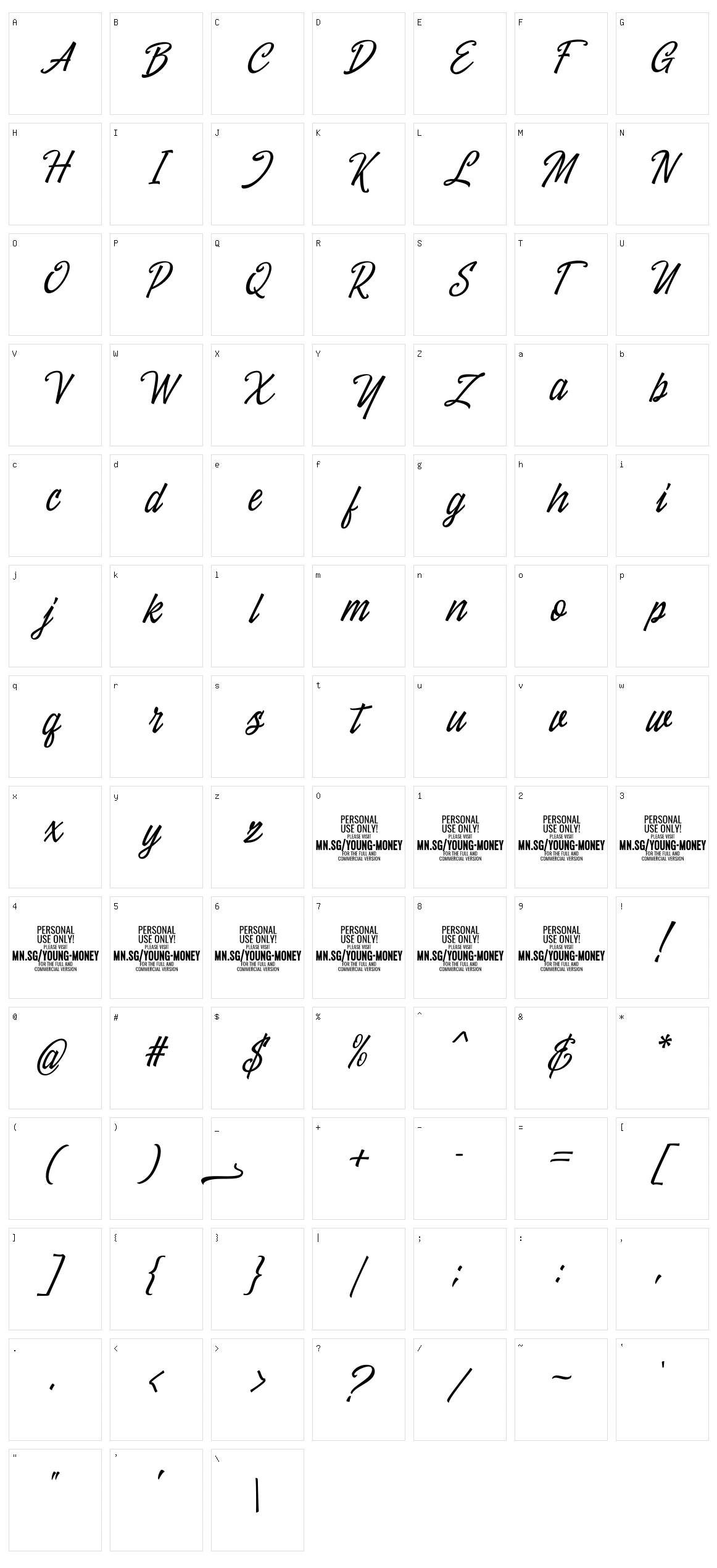
Young Money is a script font that expresses a sense of forwardness and spontaneity. Its calligraphic strokes were created with a brush, giving it a wild and fast appearance that's perfect for conveying energy and movement. This font is ideal for sporty designs, trendy logos, and anything that requires a touch of youthful vigor.
With its Bold and Italic styles, Young Money is versatile enough to be used for a variety of design purposes. The Italic style gives the font a more emphasized look, while the Bold style adds an extra level of impression and strength. The swashes included in the font allow for even more customization, giving designers the ability to create truly unique and expressive designs.
Whether you're designing a logotype, poster or product brand, Young Money is a font that perfectly captures the spirit of youth and vitality.
Use underscore _ after a word to make a swash.
Example: Wild_
Use multiple underscores to make longer swashes.
Example: Bonfires_____
Use # after any letter to make a swash version.
Example: Spring#Zone#
The font is built with advanced OpenType functionality and has a guaranteed top-notch quality, containing stylistic and contextual alternates, ligatures and more features; all to give you full control and customizability.
It contains all characters and symbols you'll ever need, including all punctuation and numbers.